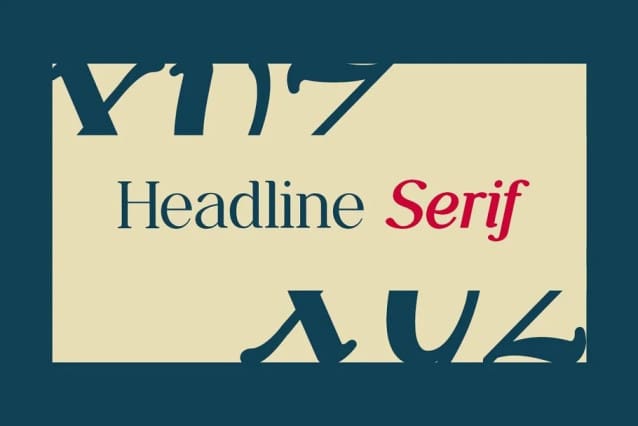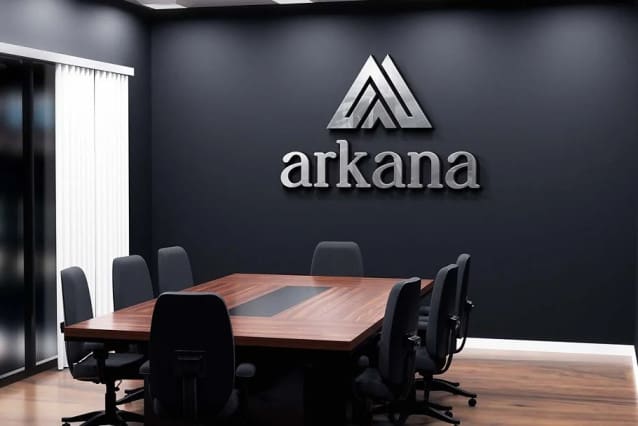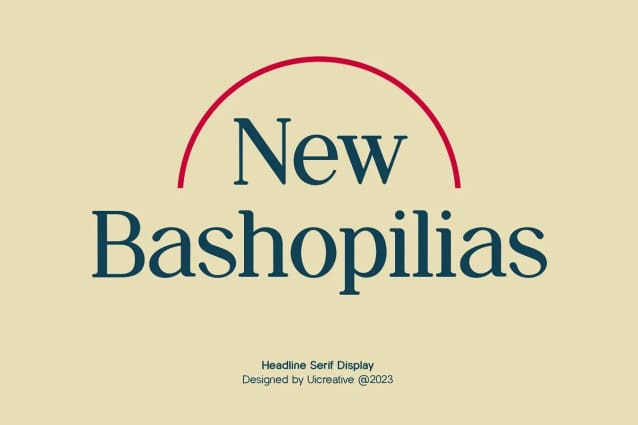
New Bashopilias Font
New Bashopilias Font – Retro Serif Family. Modern Serif font that feels beautiful classy, elegant, and modern. This font is ideally suited for a wide variety of projects, such as signature, stationery, logo, wedding, typography quotes, magazine or book covers, website headers, clothing, branding, packaging design, and more. Also, fashion-related branding or editorial design displays both masculine and feminine qualities.